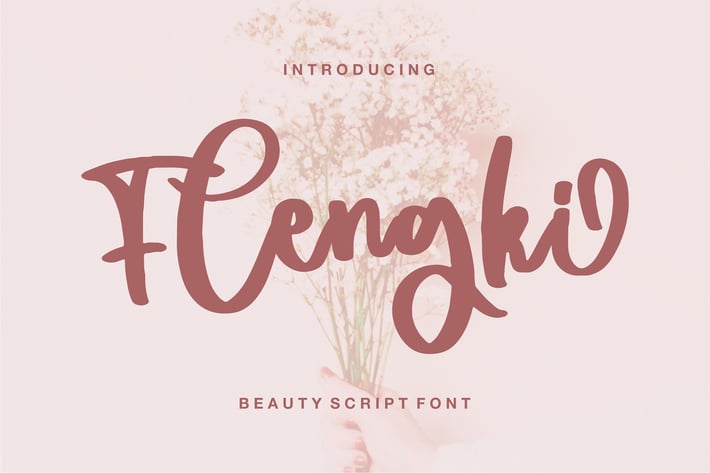
Flengki | Beauty Script Font
Flengki | Beauty Script Font with a calligraphy style, So beautiful on invitation like greeting cards, branding materials, business cards, quotes, posters, and more!